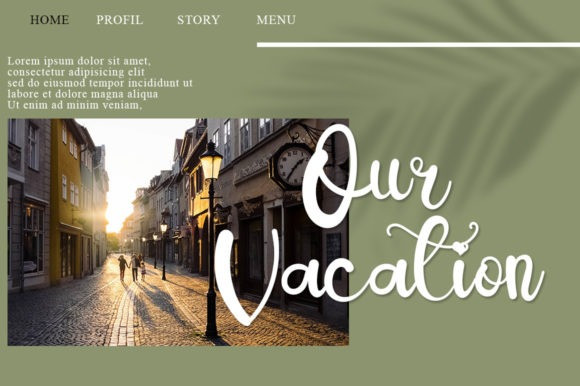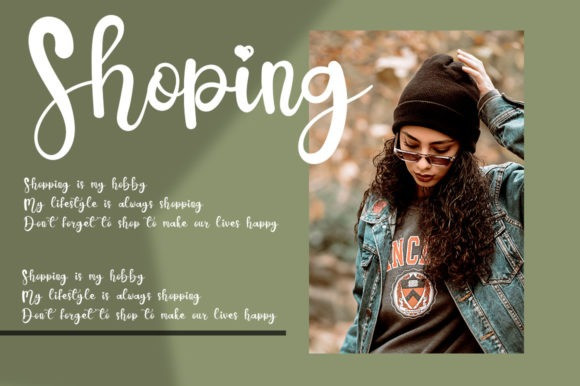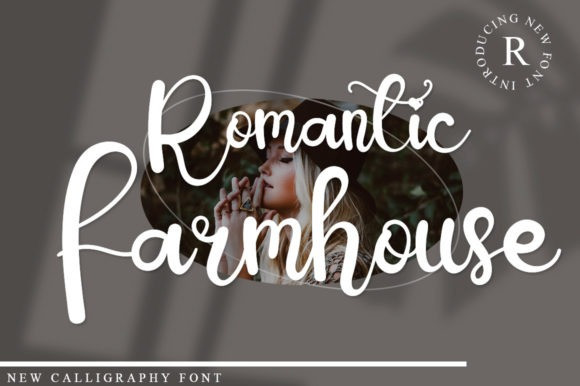
Romantic Farmhouse Font
Romantic Farmhouse Script Font is a beautiful and sweet script font. It is fresh, clean, and elegant. This font will look amazing in a great amount of projects, both formal and informal.It will add an incredibly joyful touch to your designs.